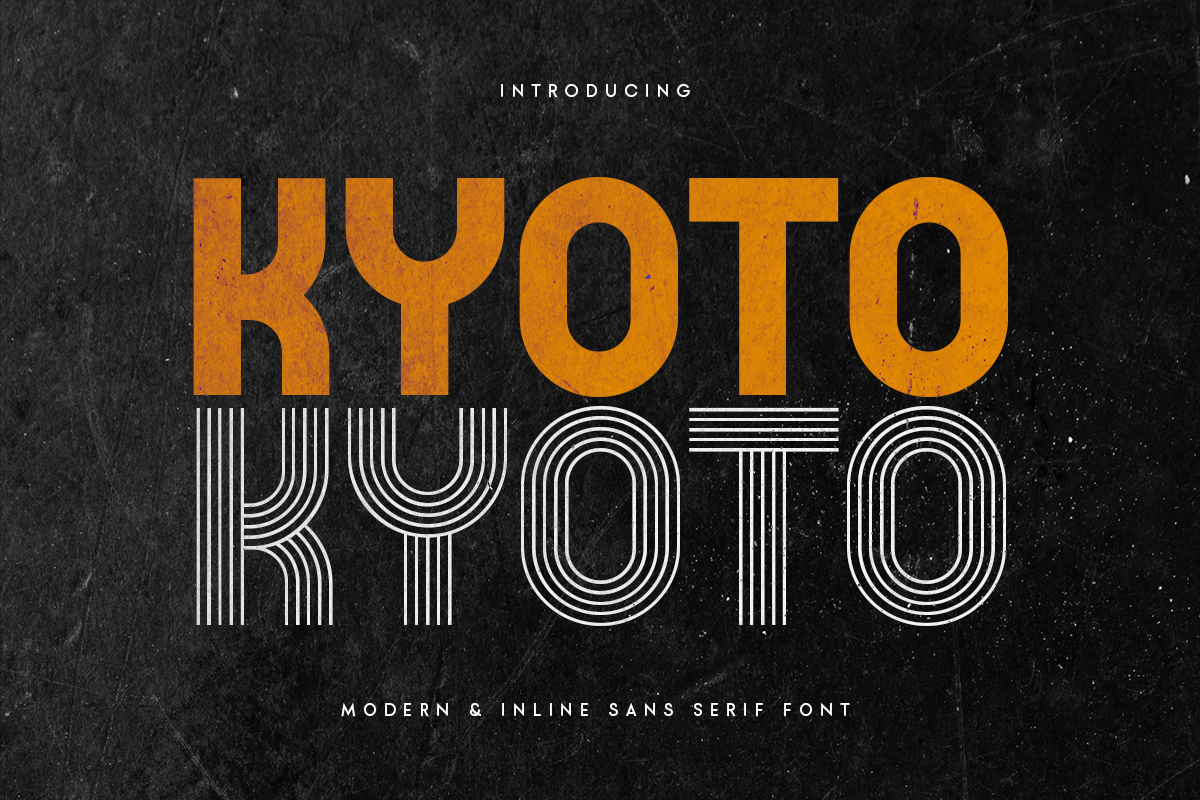
Kyoto
-Modern Sporty Sans Serif Font
kyoto
Kyoto
kyoto inline
Kyoto
Kyoto is a Modern sans serif display font that special created for Modern needs with unique style. A New Display font that we created special for Unique branding needs, with weird style that ready to add value of your brand. It’s so nice to leverage designer or product owner that need solutions to make their design look more unique and urban.